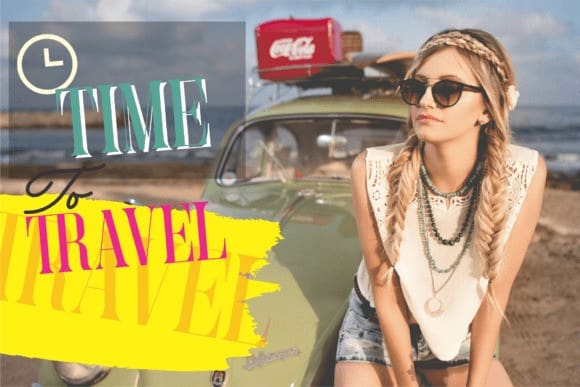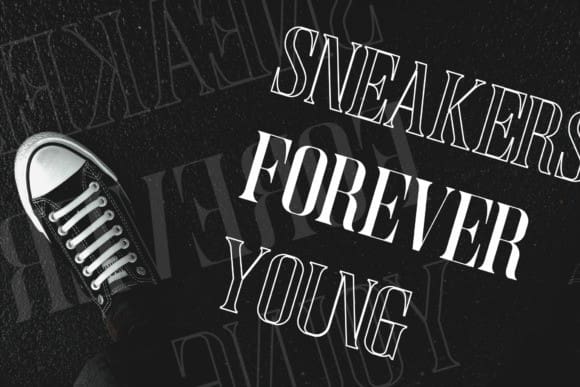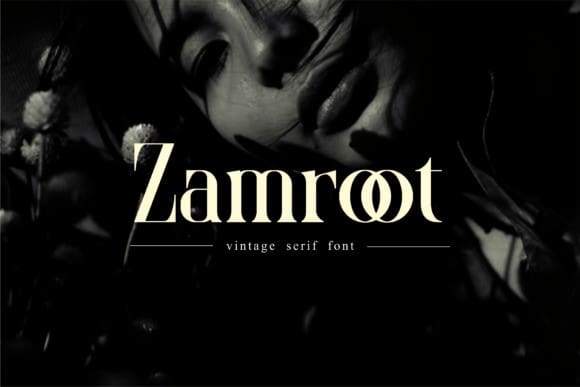
Zamroot Font
Zamroot Font is a stylish and unique serif font. It feels playfully nostalgic and delivers an incredible vintage aesthetic. Zamroot will elevate a wide range of design projects to the highest level, be it branding, headings, wedding designs, invitations, signatures, logos, labels, and much more!